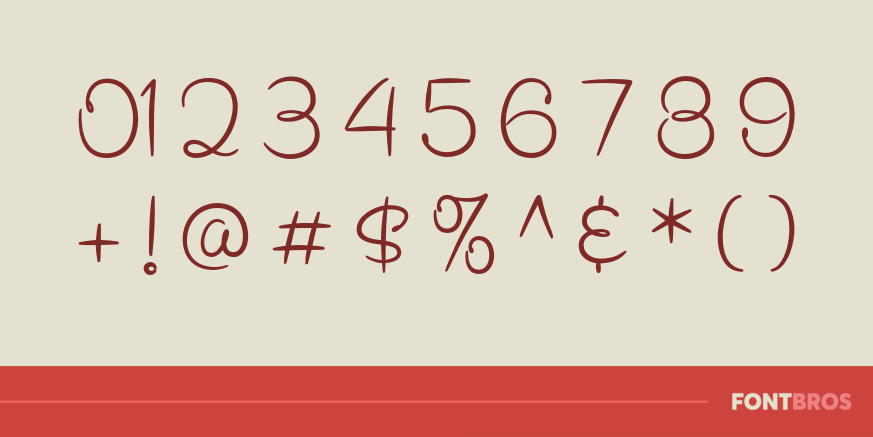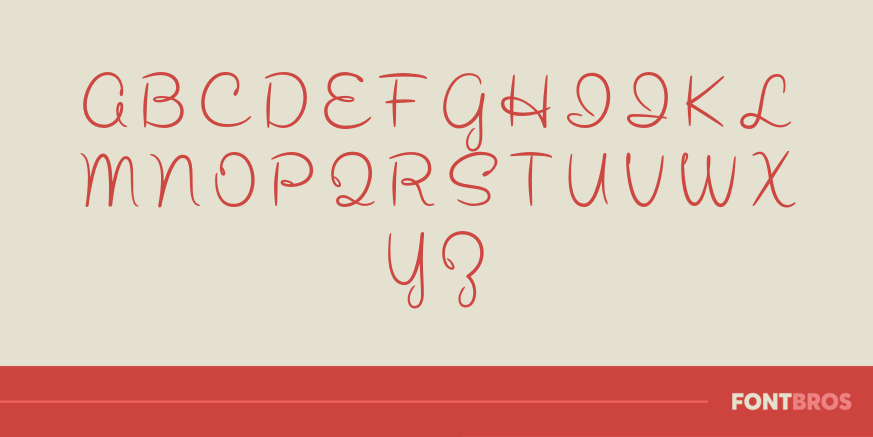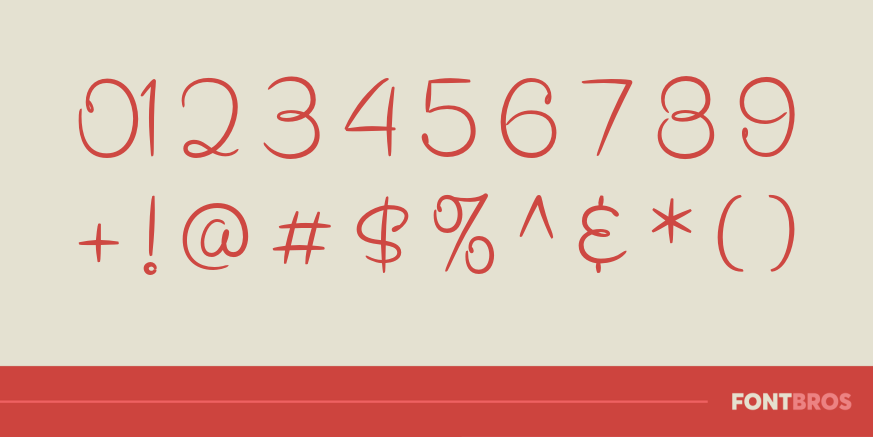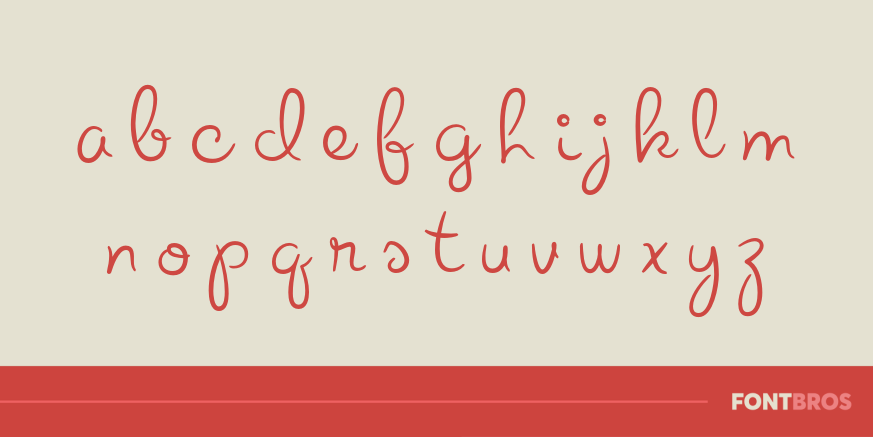
Secret Recipe
Font Family by Font Diner
Shhh! Don't give this one away, it's been handed down for generations and it comes with a blue-ribbon guarantee! This casual handwritten script is ideal for your finest recipes!